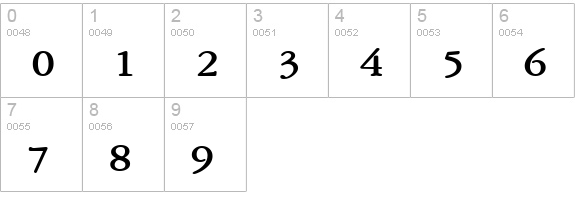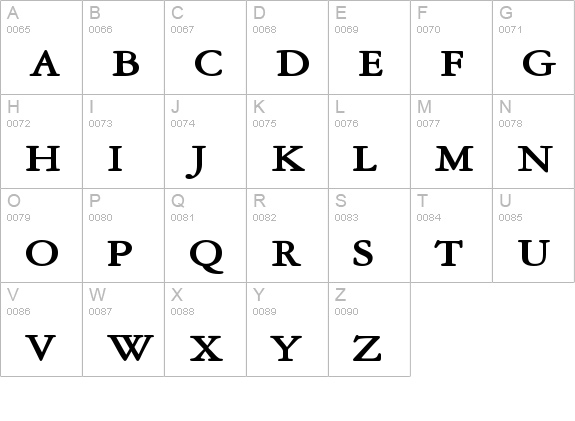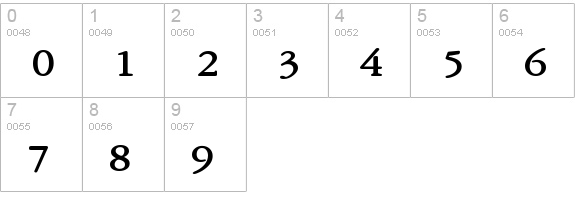
Amery Wide Bold is a strong, high-contrast, extended-width variant in the Amery typeface family \xE2\x80\x94 well suited to headlines, attention-grabbing titles, and strong calls-to-action.